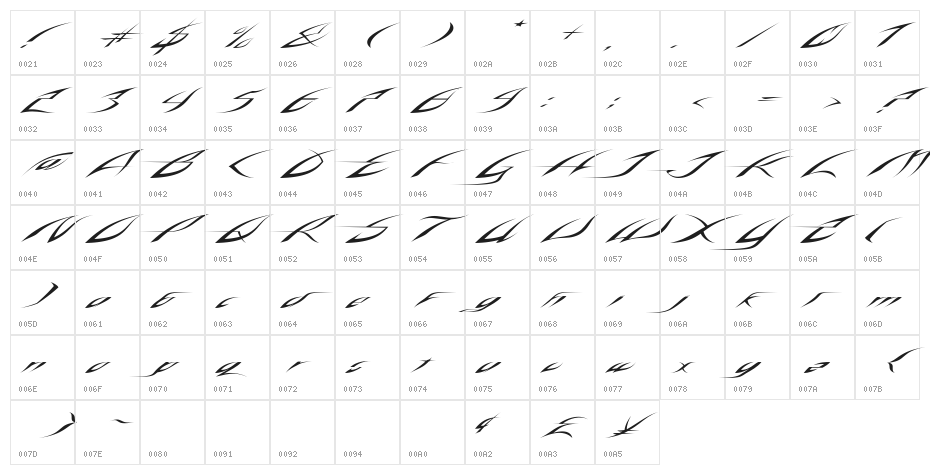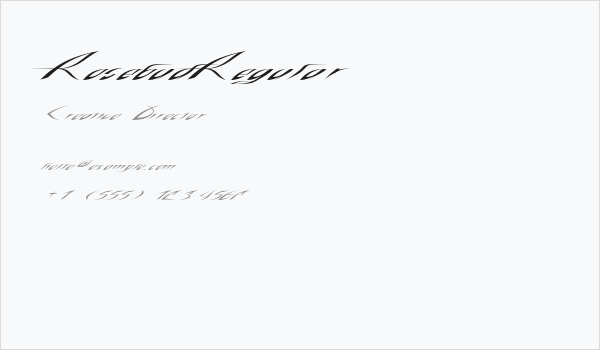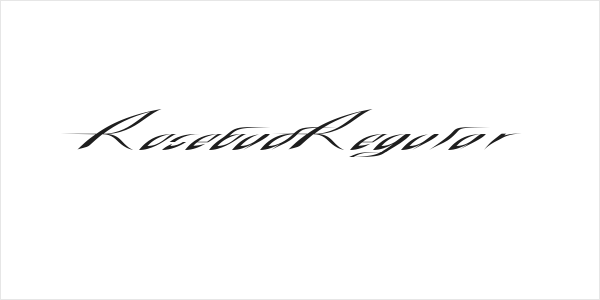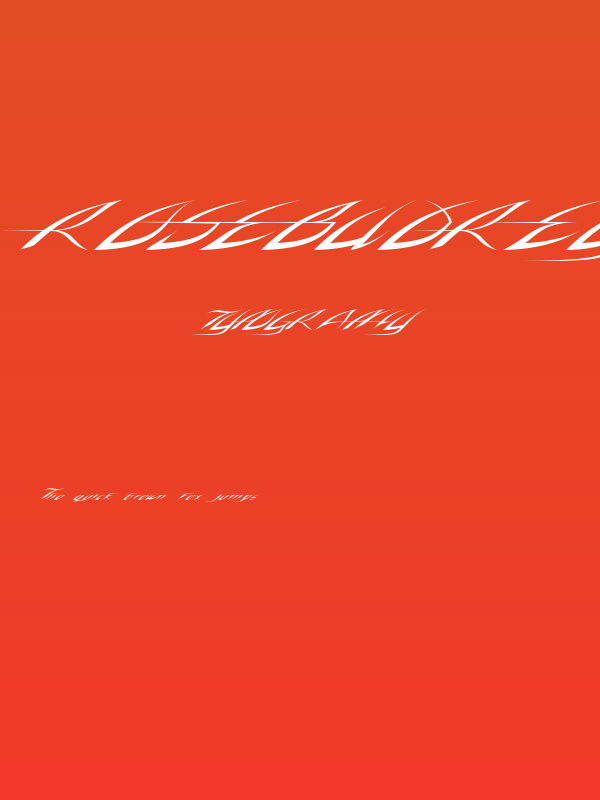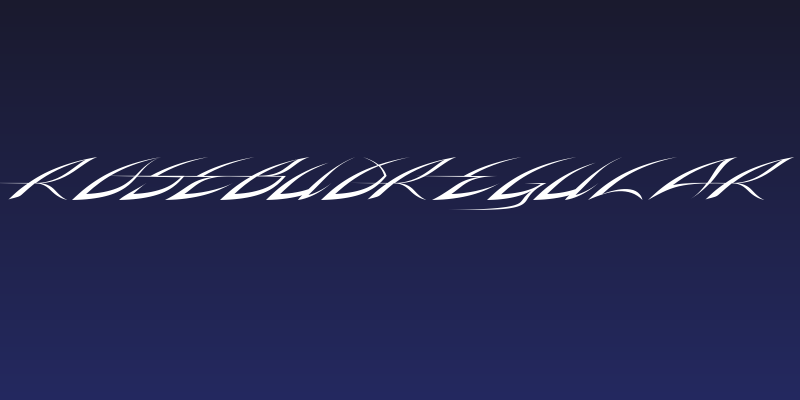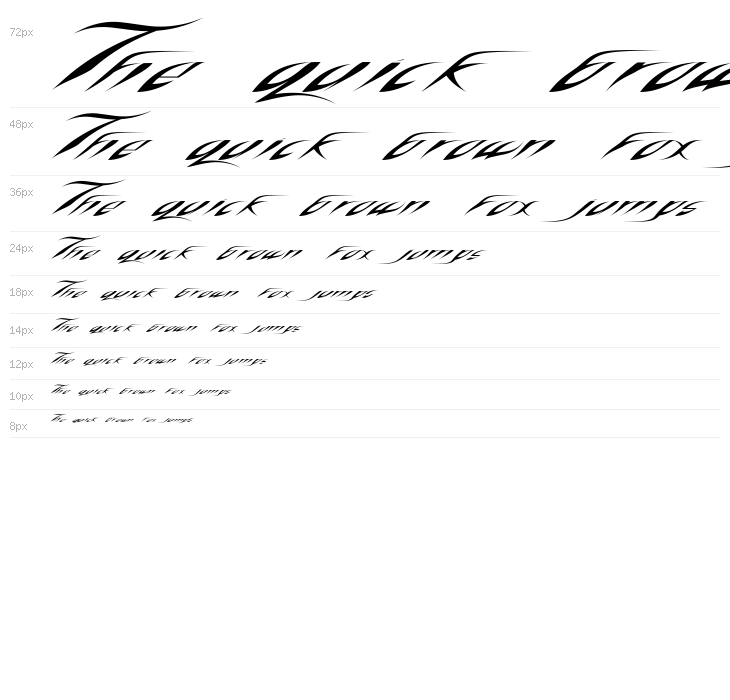
RosebudRegular Font
RosebudRegular Description
This font features a dynamic and flowing script style, characterized by sharp, angular strokes and a sense of movement. The letters are elongated with dramatic curves and pointed ends, giving it an edgy and modern appearance. The uppercase and lowercase letters maintain a consistent style, with a slight slant that enhances its fluidity. The numerals and special characters are designed to match the overall aesthetic, ensuring a cohesive look across all text. This font is ideal for projects that require a bold and artistic touch, such as branding, posters, or creative headlines.
Use CaseHeadlines, Logos, Artistic designs
Proposed ProjectsIdeal for branding, posters, creative headlines, and artistic designs.